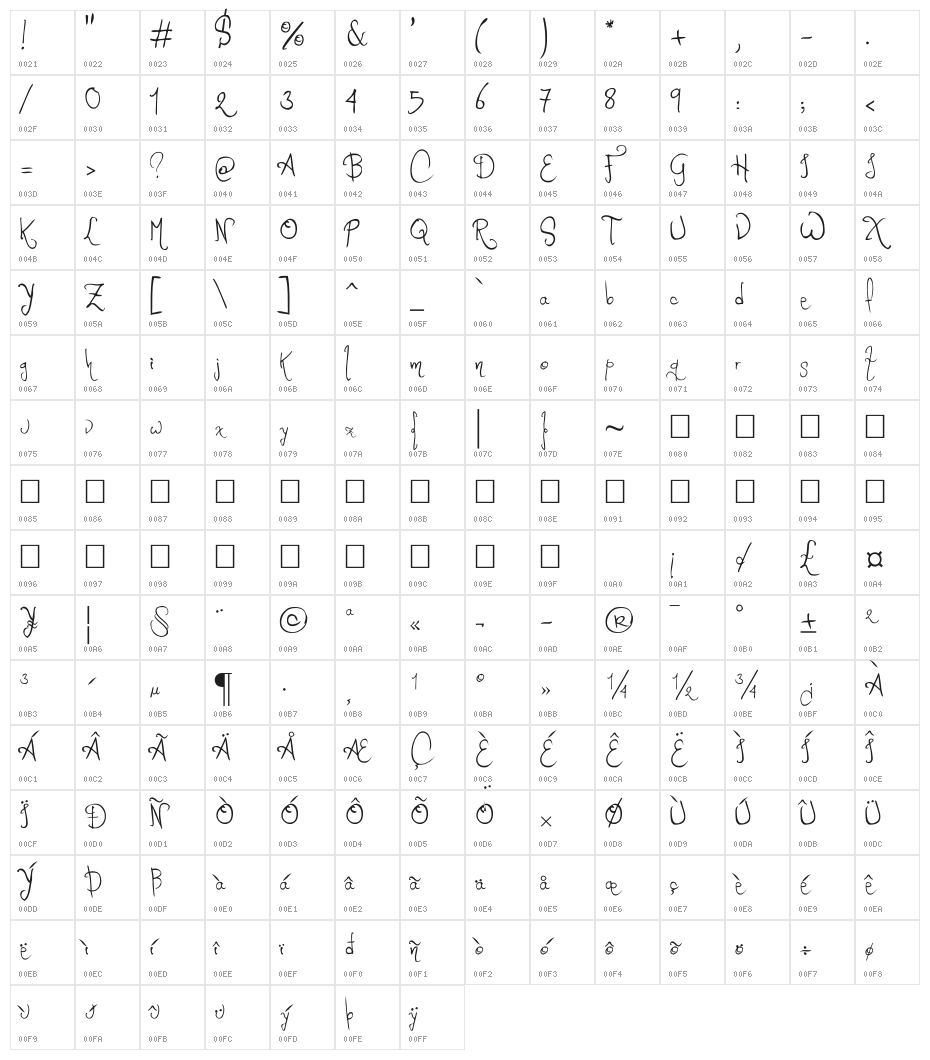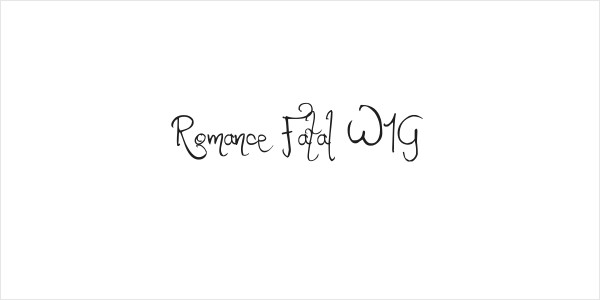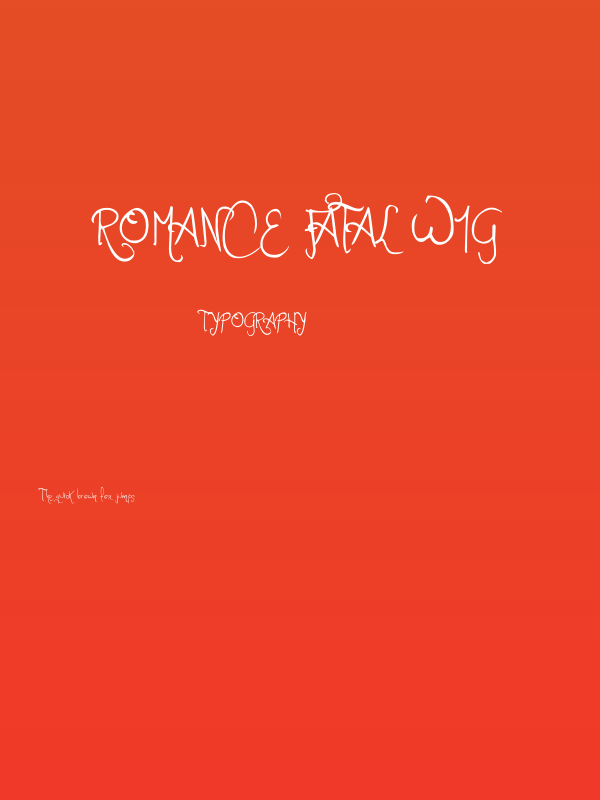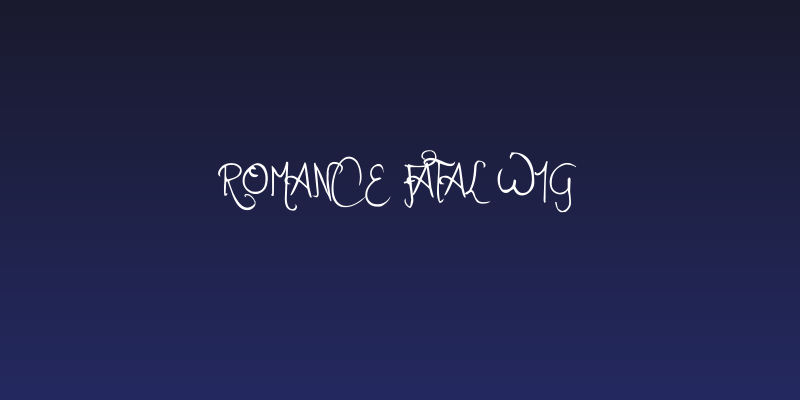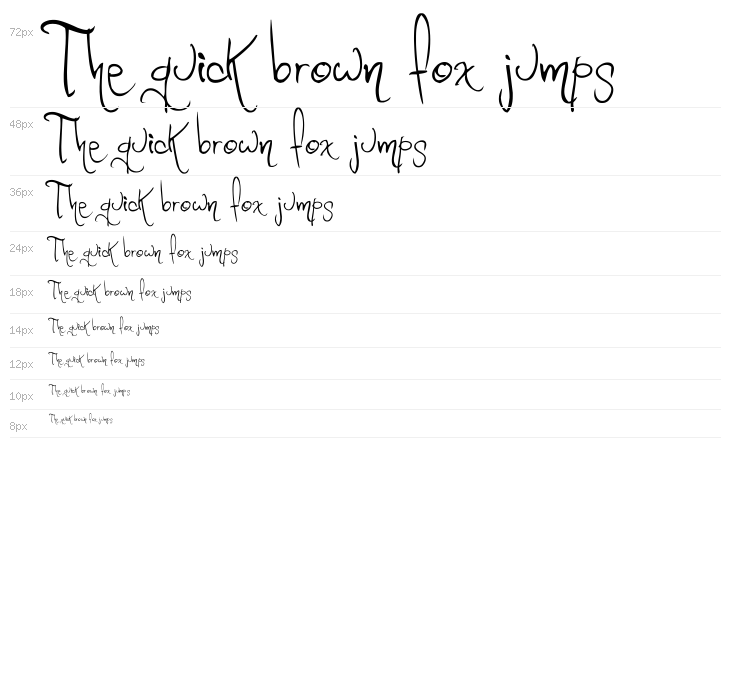
Romance Fatal W1G Font
Romance Fatal W1G Description
This font exudes a whimsical and artistic flair, characterized by its flowing, cursive-like strokes and playful loops. The uppercase letters are bold and expressive, with unique flourishes that add a touch of elegance and creativity. The lowercase letters maintain a consistent style, complementing the uppercase with their own distinctive curves and swirls. Numbers and special characters are crafted with the same artistic touch, ensuring a cohesive look across all elements. The overall design is both decorative and legible, making it suitable for projects that require a touch of personality and charm.
| Use Case | Headlines, Logos, Artistic projects |
| Proposed Projects | Ideal for wedding invitations, greeting cards, artistic posters, and branding that requires a personal touch. |